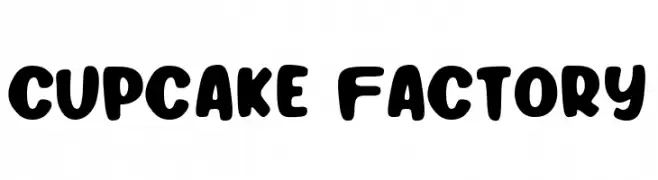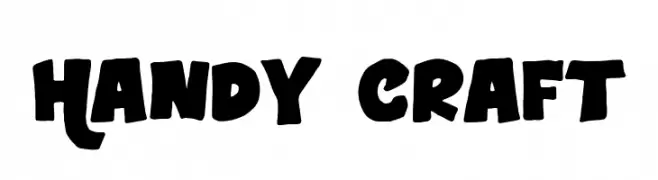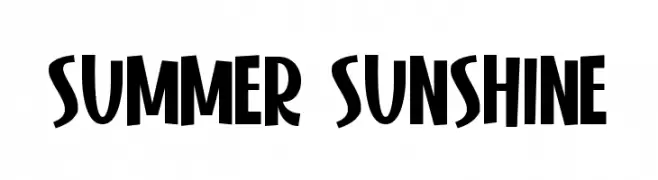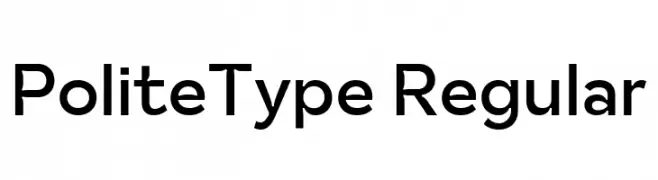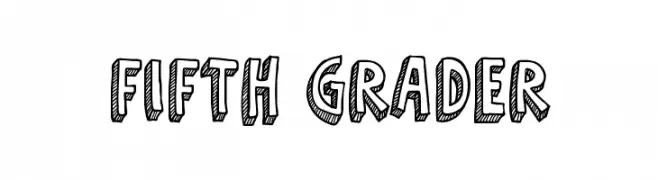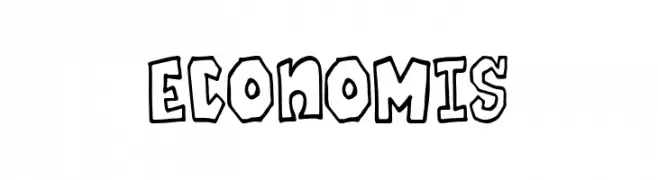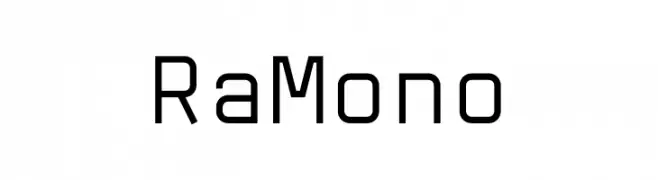
( Fonts by Tokokoo Studio )
A bold, playful font with chunky, rounded characters and a whimsical style.
( Fonts by Lettersiro Studio )
A playful, bold font with rounded, bubbly characters.
( Fonts by Tokokoo Studio )
A bold, playful font with exaggerated strokes and quirky angles.
( Fonts by Khurasan )
A playful, hand-drawn font with a whimsical and friendly style.
( Fonts by Lettersiro Studio )
A bold, playful font with a handcrafted, whimsical style.
( Fonts by Figuree Studio )
A bold, playful font with dynamic, slightly irregular letterforms.
A modern sans-serif font with geometric shapes and uniform stroke width.
( Fonts by Tokokoo Studio )
A bold, hand-drawn font with a playful, three-dimensional effect.
( Fonts by Ditya Ananto )
A playful, hand-drawn font with bold, cartoonish outlines.
( Fonts by Rahman Yerli )
A modern, monospaced font with geometric shapes and consistent stroke weight.